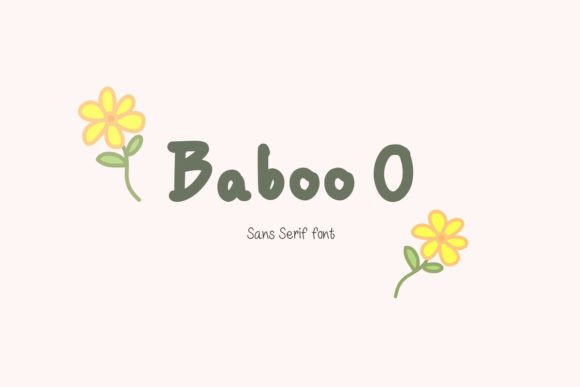
Discover the Charm of Baboo O Font: A Designer’s New Best Friend
I still remember the frustration of working on a project, hours spent searching for the perfect font, only to end up with something that just didn’t quite fit. It was as if the font was trying to convey a message, but it wasn’t quite resonating with my design vision. My client wanted something bold, yet adorable; minimal, yet attention-grabbing. That’s when I stumbled upon Baboo O Font, and let me tell you, it was love at first sight!
A Personal Review: What I Love About Baboo O Font
Baboo O is a thick-lettered, minimal and adorable sans serif font that has become a staple in my design toolkit. Here are a few things that I absolutely love about it:
• ✨ Perfect for headlines and titles: Baboo O Font is designed to make a statement. Its bold, thick letters are perfect for grabbing attention and adding emphasis to your headlines and titles.
• ✅ Versatile and adaptable: Whether you’re working on a branding project, packaging design, or a simple party decoration, Baboo O Font fits right in.
• 🎉 Easy to read and fun to use: The font’s clean and minimal design makes it easy to read, even at smaller sizes. Plus, its adorable vibe adds a touch of playfulness to any design.
While Baboo O Font is an amazing addition to any design project, there are a few things to keep in mind:
• 🤔 Limited use for body text: Due to its bold nature, Baboo O Font might not be the best choice for longer blocks of text. It’s perfect for headlines and titles, but you might want to pair it with a complementary font for body text.
• ⚠️ Be mindful of font size: While Baboo O Font looks great at larger sizes, it can become a bit overwhelming at smaller sizes. Make sure to test it out at different sizes to find the sweet spot for your design.
The Story Behind Baboo O Font
Baboo O Font was designed with the intention of creating a bold, yet adorable font that’s perfect for a wide range of design applications. The designer wanted to create a font that’s both fun and functional, making it perfect for designers, crafters, and creative hobbyists alike.
Q: What is Baboo O Font?
A: Baboo O Font is a thick-lettered, minimal and adorable sans serif font that’s perfect for a wide range of design applications.